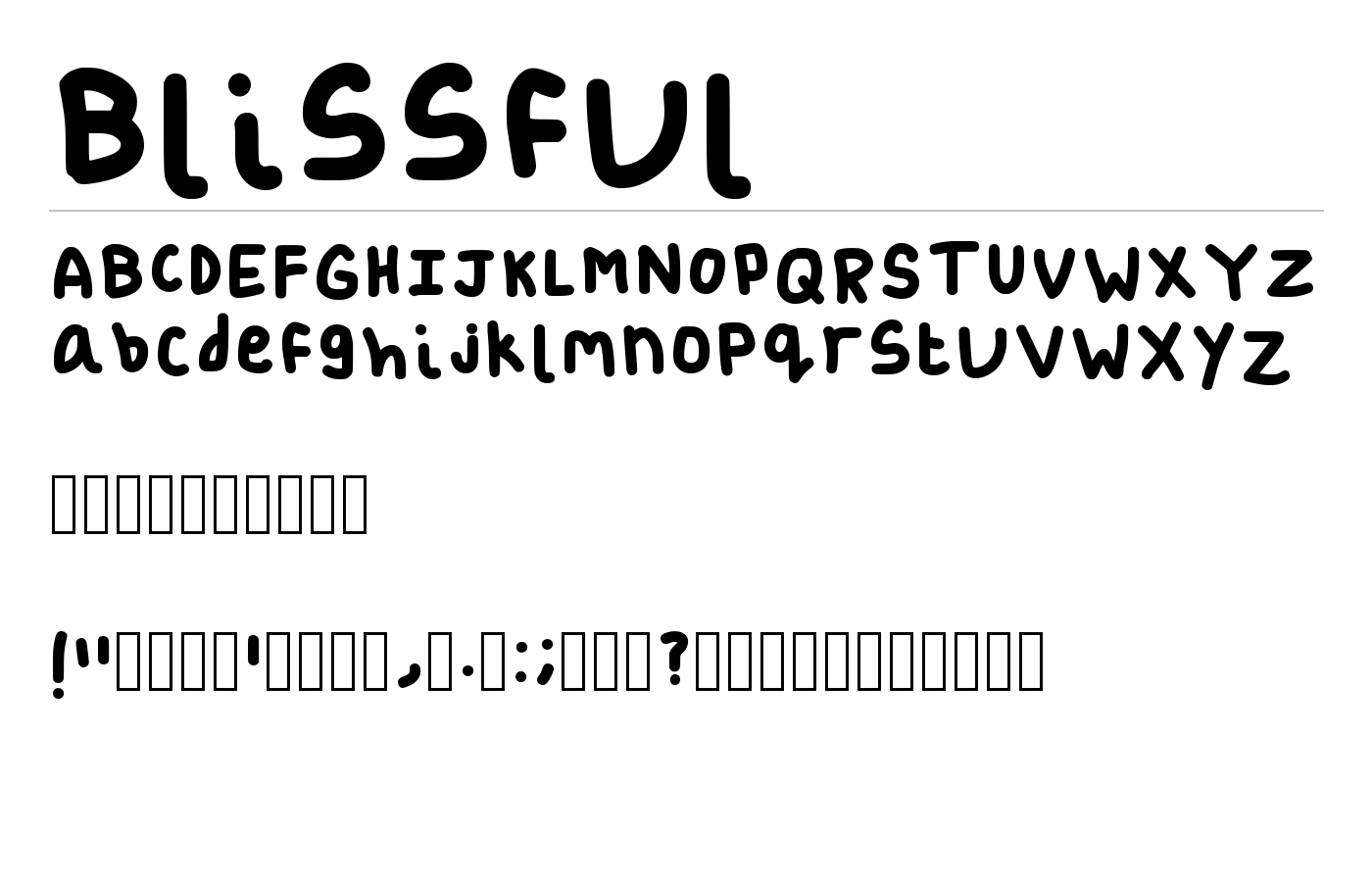
Blissful is a charming, casual handwritten font with a playful and friendly feel. Its rounded, irregular shapes and consistent medium weight make it ideal for informal, creative projects like children's books, greeting cards, and fun branding that seeks warmth and approachability. This font works well in headlines and short texts where a personal, cheerful vibe is desired.
Blissful Font